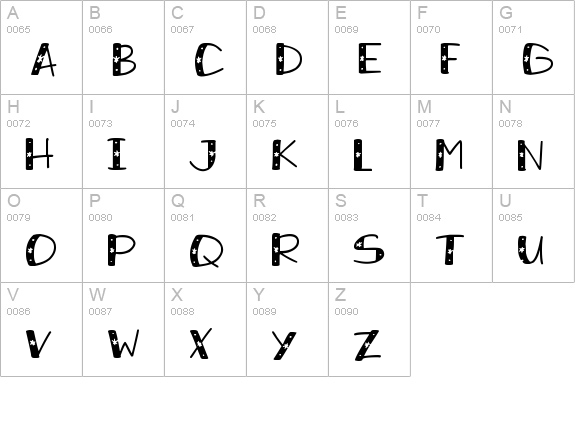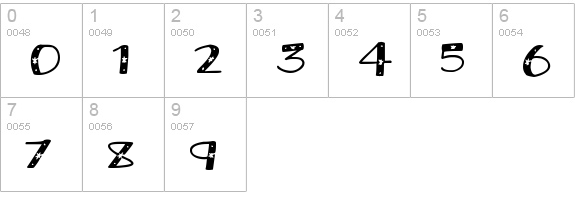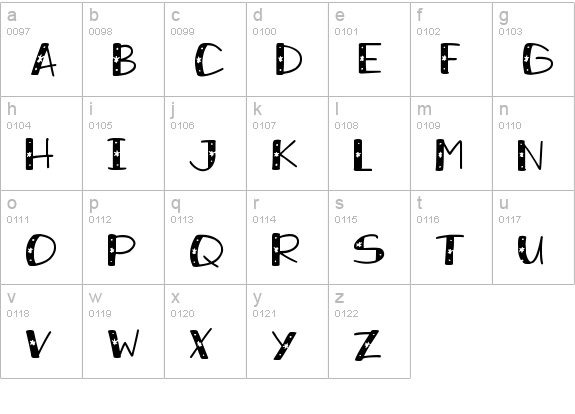
Snowy Sparkles Font Details
Snowy Sparkles is a free for personal use font in the Fancy > Decorative category, designed by Darrell Flood. It has been downloaded 105 times and is available for Windows, Mac and Linux.
Snowy Sparkles font is a whimsical and elegant typeface that brings a touch of magic to your designs. With its delicate curves and sparkling details, Snowy Sparkles is perfect for adding a festive and enchanting feel to your projects. This font is ideal for holiday cards, invitations, posters, and more.